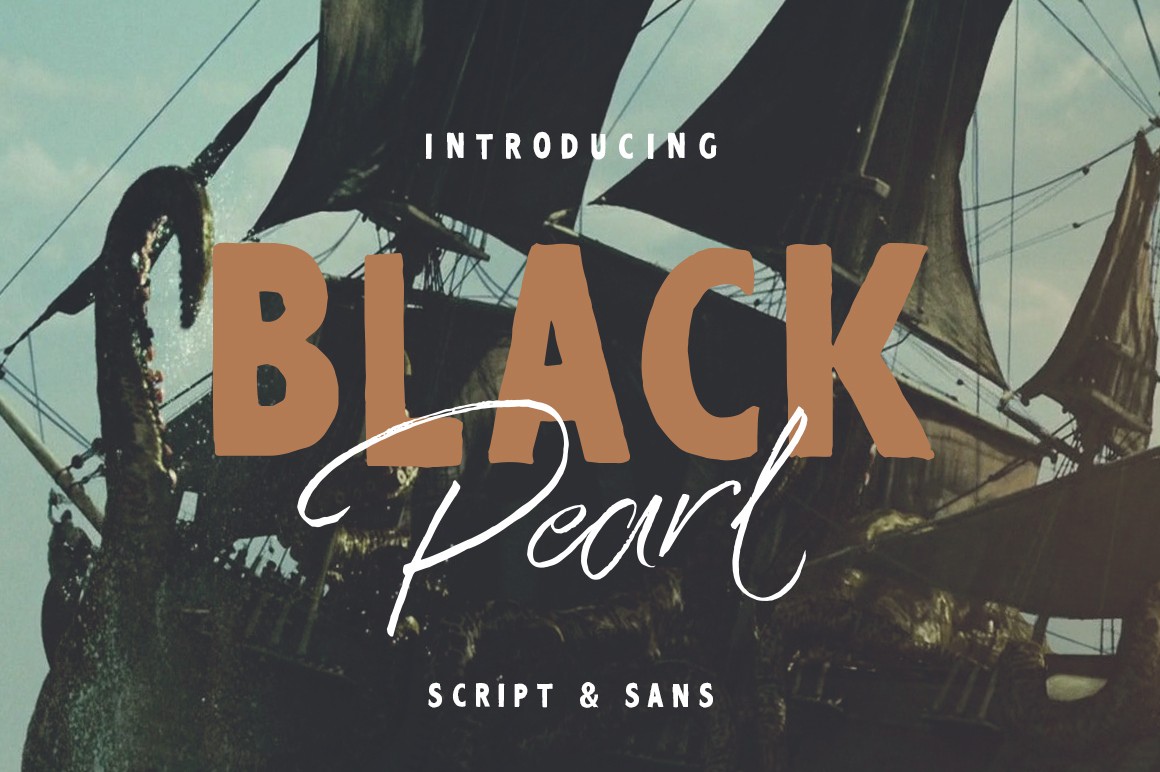
Black Pearl Font
Black Pearl Font is perfect for luxury jewelry branding, high-end fashion magazines, premium cosmetics packaging, sophisticated wine labels, elegant restaurant menus, exclusive event invitations, upscale boutique signage, luxury hotel materials, refined corporate communications, and prestigious award ceremonies.
What makes Black Pearl Font so exciting is its exquisite embodiment of rare elegance and mysterious luxury that captures the lustrous beauty and precious rarity of nature's most coveted gems. This sumptuously crafted typeface features gracefully curved letterforms with lustrous character details and sophisticated proportions that immediately convey exclusivity, refinement, and timeless beauty. The font's iridescent construction and luxurious aesthetic create an immediate sense of precious value and sophisticated taste, making it ideal for projects that need to communicate opulence, exclusivity, and the irresistible allure of rare beauty to discerning audiences who appreciate the finest things in life.
The Black Pearl Font family typically includes multiple luxurious weights and precious styles, often featuring light, regular, and bold variations along with elegant italic versions. Premium font collections frequently offer additional ornamental elements such as decorative flourishes, luxury ligatures, and sophisticated alternates that enhance the precious aesthetic and provide designers with comprehensive tools for creating truly exquisite and memorable communications.
The precious nature of Black Pearl Font makes it particularly effective for targeting ultra-high-end demographics where projecting rarity and exclusivity are essential for premium positioning. Luxury brand managers and high-end creative directors will find this font especially valuable for campaigns that must establish immediate recognition of supreme quality and attract audiences who value uniqueness, craftsmanship, and extraordinary beauty.
What distinguishes Black Pearl Font is its ability to convey ultimate luxury while maintaining the understated elegance that truly sophisticated audiences appreciate. This refined characteristic makes it suitable for the most exclusive applications where projecting prestige without ostentation is crucial for attracting genuinely discerning clientele.
Professional designers appreciate that Black Pearl Font brings invaluable precious credibility to projects across industries including luxury goods, high fashion, fine jewelry, and exclusive hospitality. Its lustrous character and precious appeal make it essential for organizations targeting the most sophisticated markets where rarity, beauty, and exclusivity are primary luxury indicators.
The carefully cultivated preciousness of Black Pearl Font ensures consistent luxury positioning across all ultra-premium communication opportunities.